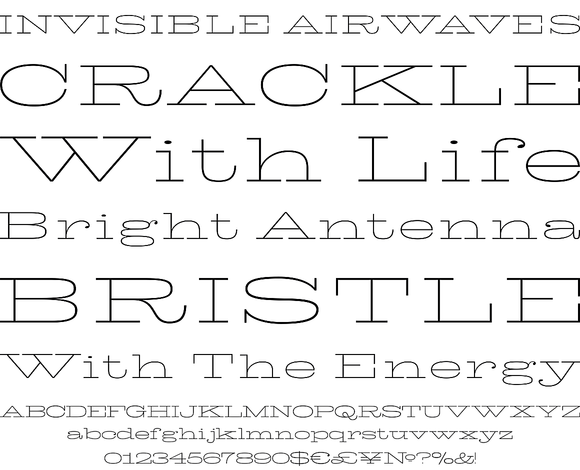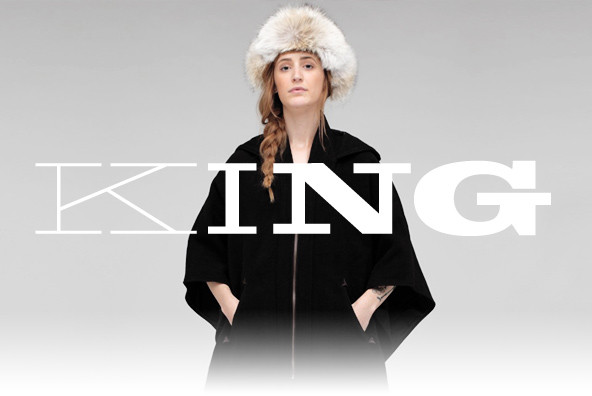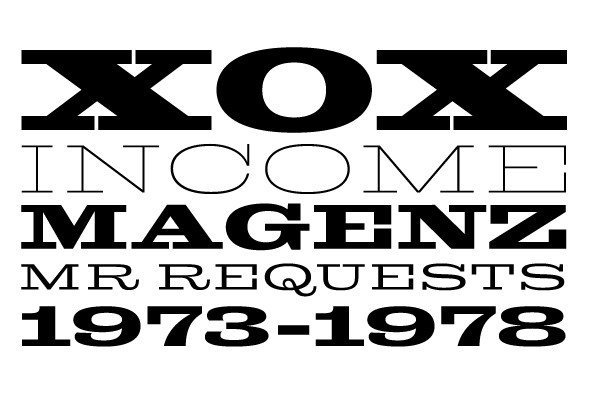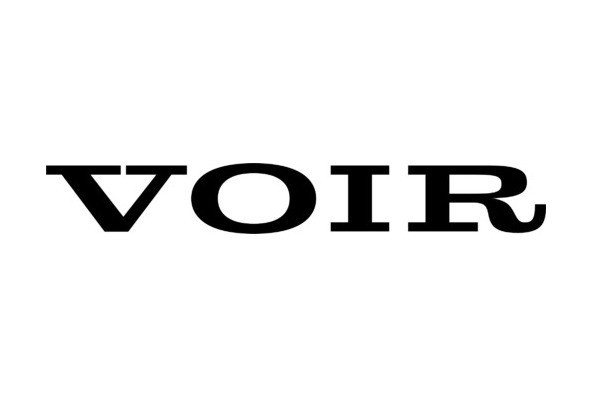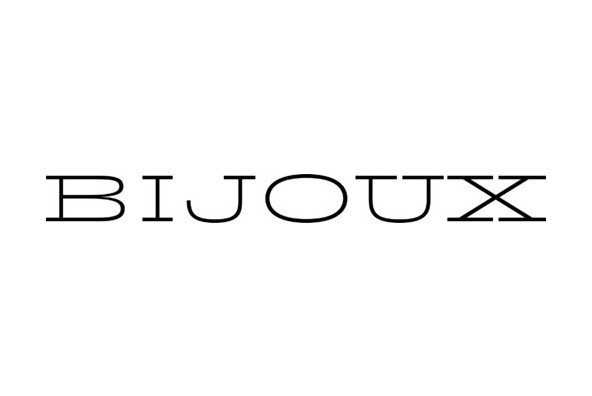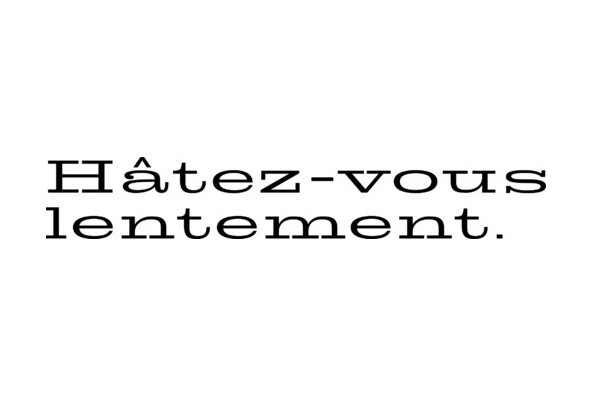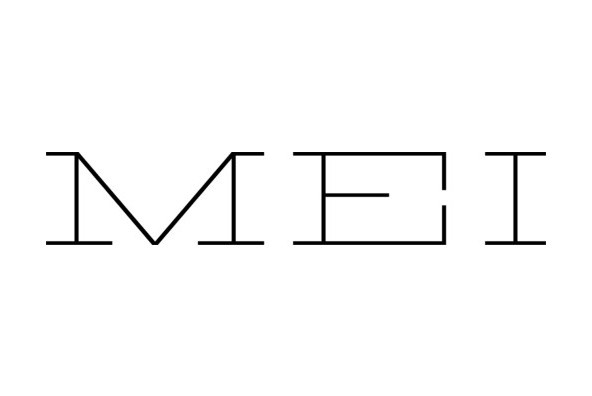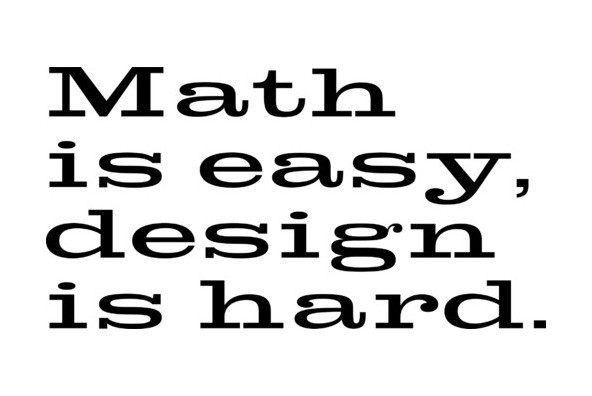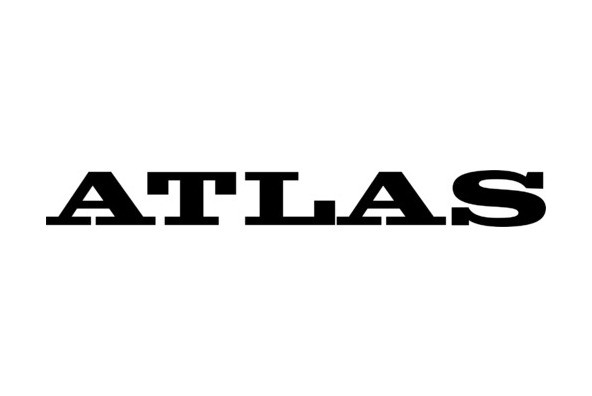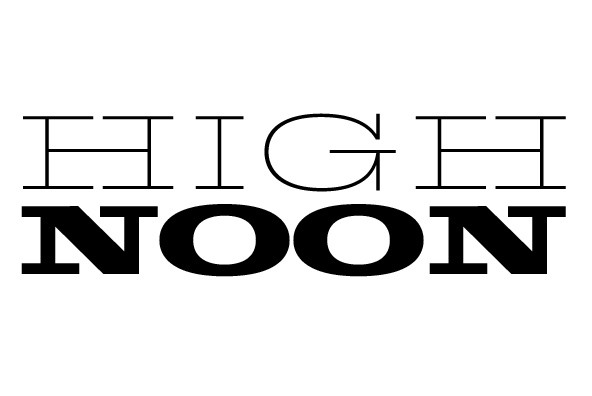
King Tut is a restoration and expansion of the original Egyptian Expanded, a single bold face cut in 1850 by Miller & Richard, the famous Edinburgh founders. This aesthetic, though originally issued to help drive simple print advertising of those days, is perhaps the longest lasting genre of typeface. This aesthetic flourished in the later part of the 19th century, helped by the surge of similar faces from England (such as Figgins' Antique 6 and Expanded Antique), and became the defining index of the old American wild west that continues to this very day.
King Tut serves up its impact through a balance between the wide, compact letterforms and elegant curvature that manages to come through even in confined areas. The family's weight variety allows for more options in counterspace use as well as precision in the amount of curve definition and contrast needed by the typographer. The lighter weights completely oppose that 19th century boldness and expose the alphabet's skeleton in a strive for simplicity that fits modern applications.
With generous language support to boot, King Tut's diverse offerings make it an essential addition to today's designer repertoire.